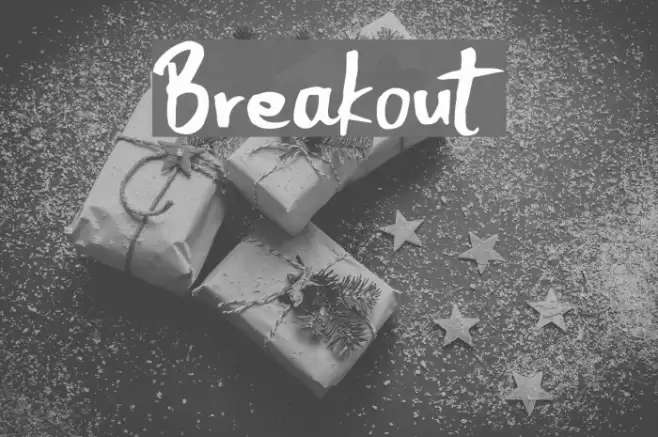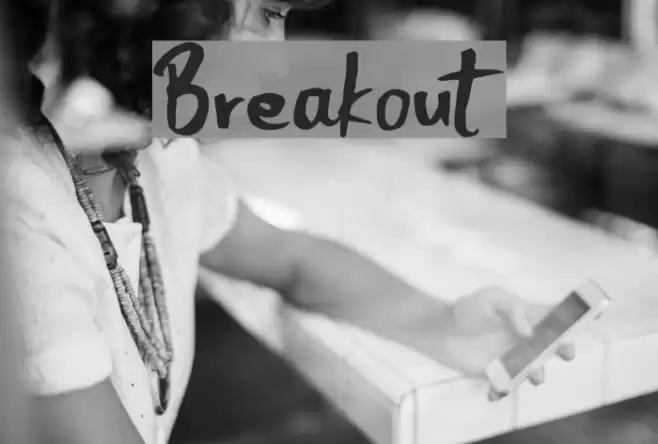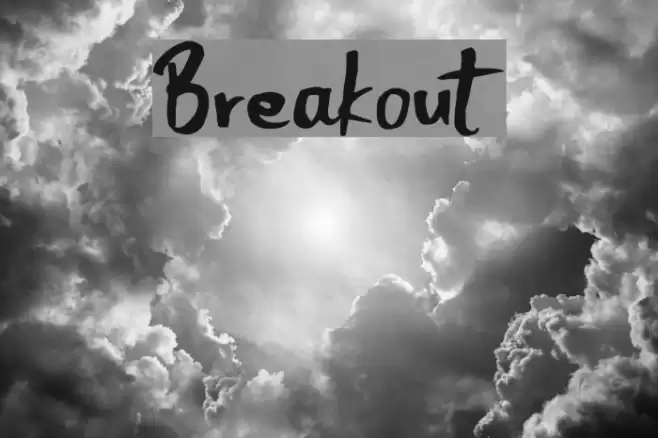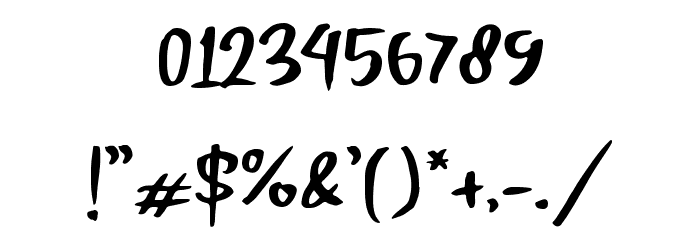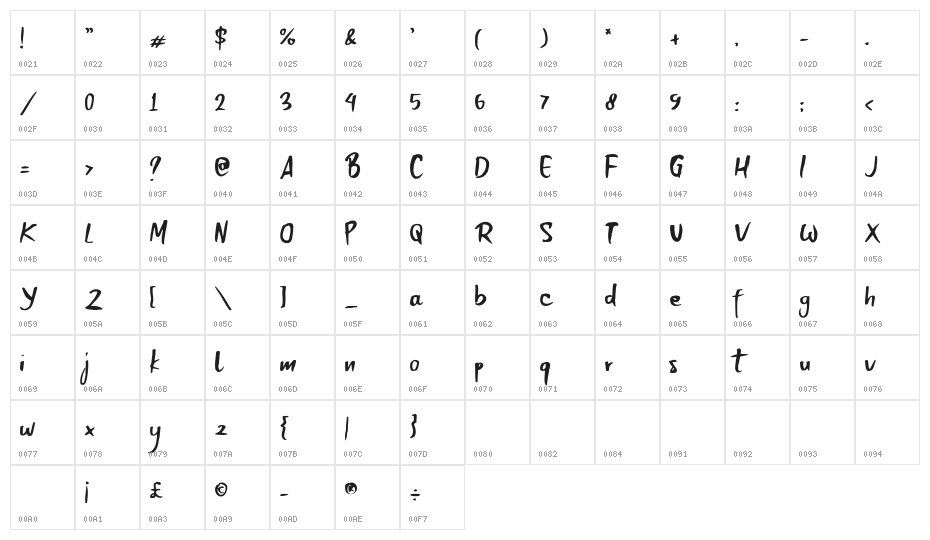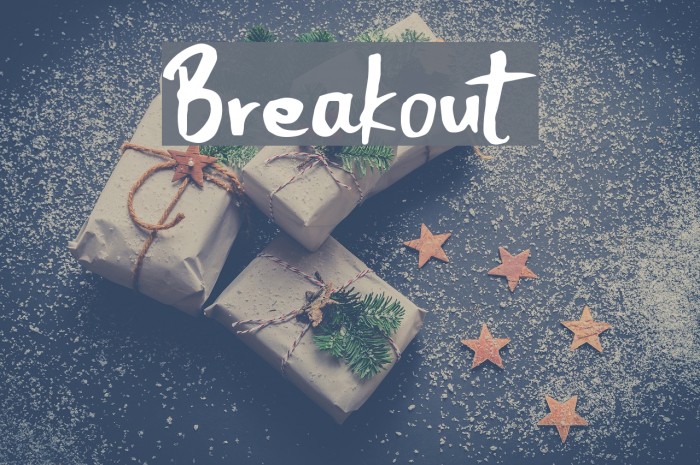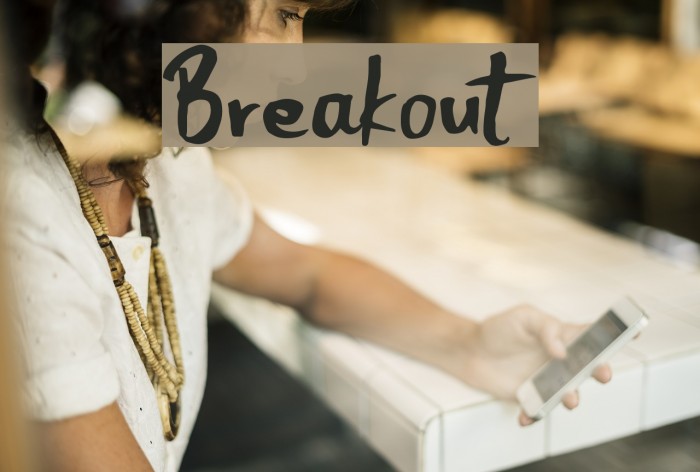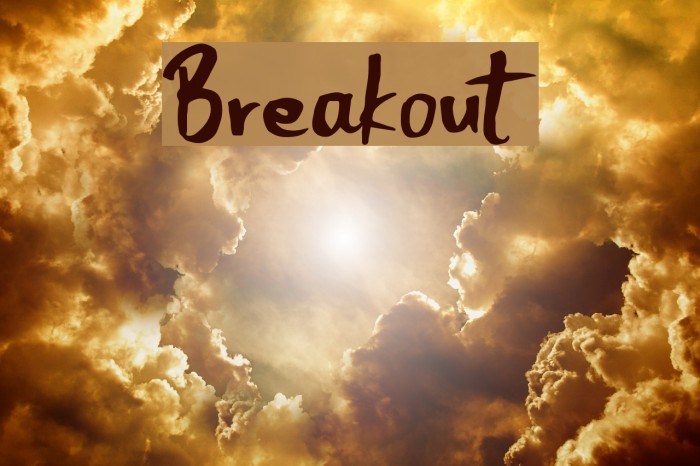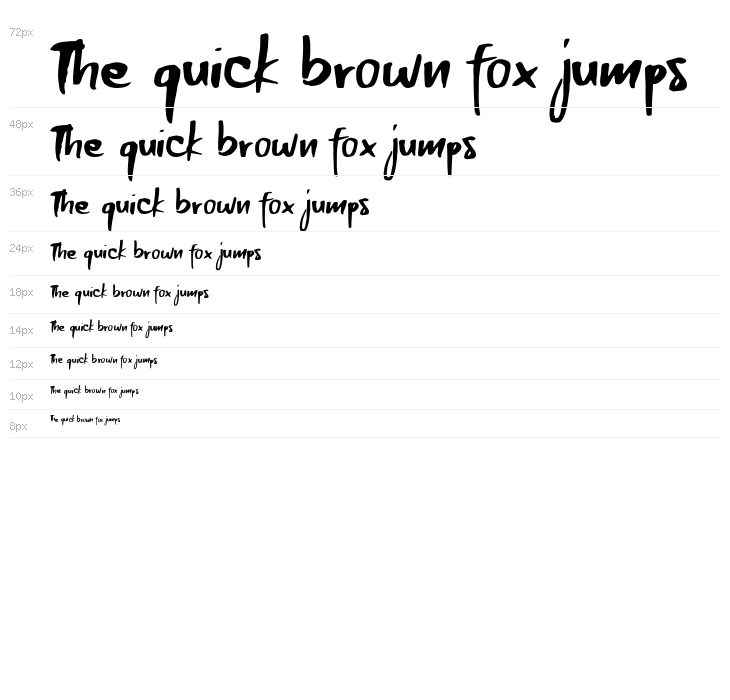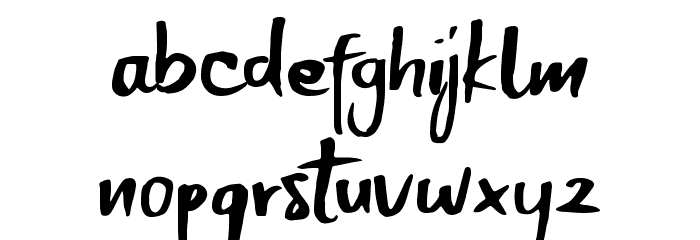
Breakout
This font exudes a bold and energetic personality with its handwritten style, characterized by fluid strokes and a dynamic flow. The uppercase letters are robust and slightly irregular, giving a sense of movement and spontaneity. The lowercase letters maintain a consistent style, with some characters featuring unique loops and curves that enhance its playful nature. Numbers and special characters are crafted with the same lively spirit, making them stand out. This font is perfect for projects that require a personal touch or a creative flair, such as posters, invitations, or branding materials.
A bold, handwritten font with dynamic strokes and a playful style from Handwritten fonts.
- Proposed Projects: Ideal for creative projects like posters, invitations, and branding materials.
- Overall Style: Decorative